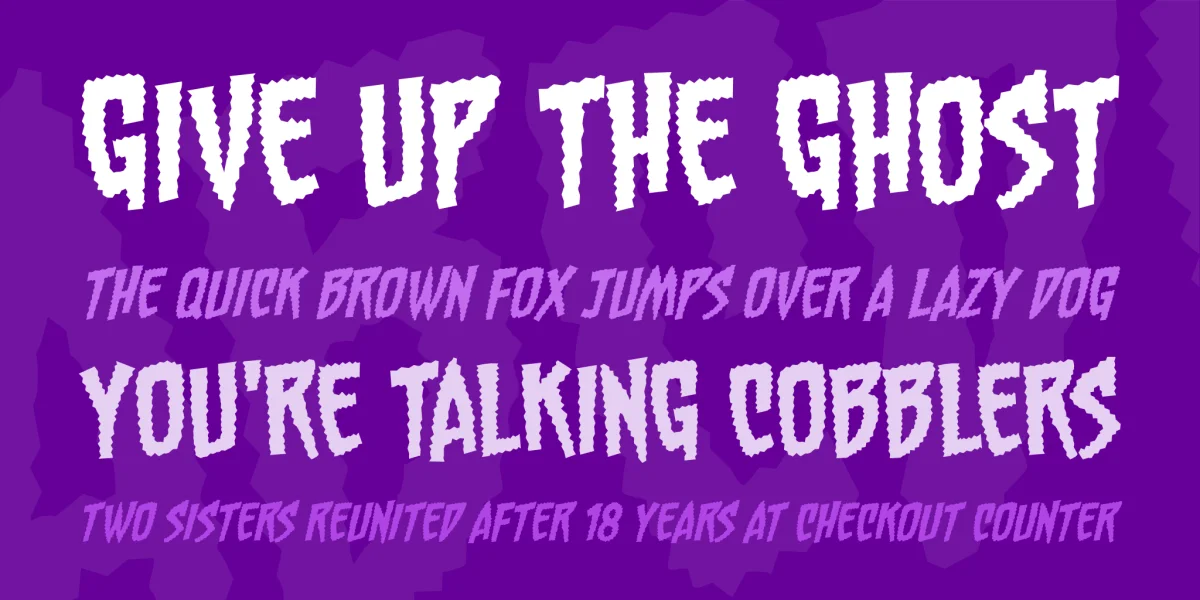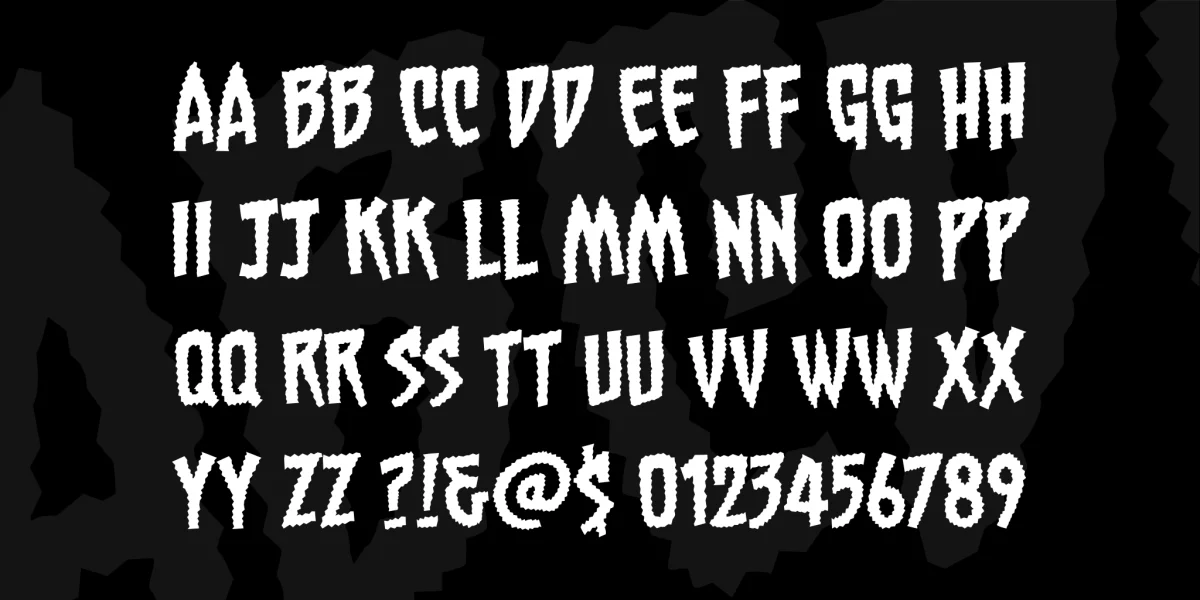
Payback is a chipped and dented chainsaw with rusty teeth. CHAINSAWZ BB is a jagged sound effects font for those less than pleasant...accidents...they may befall the characters in your comic. Messy, messy accidents... Comes with Regular and Italic.